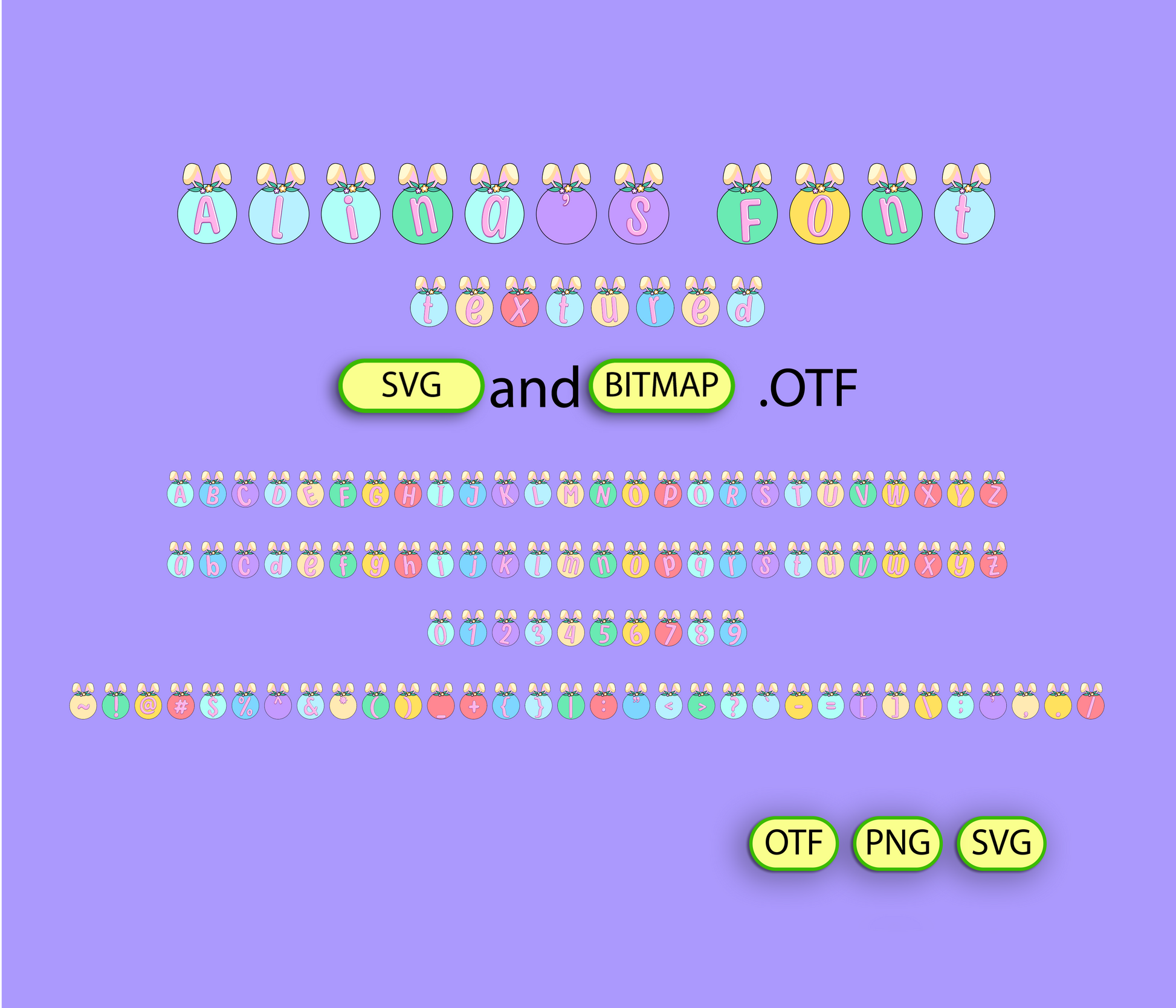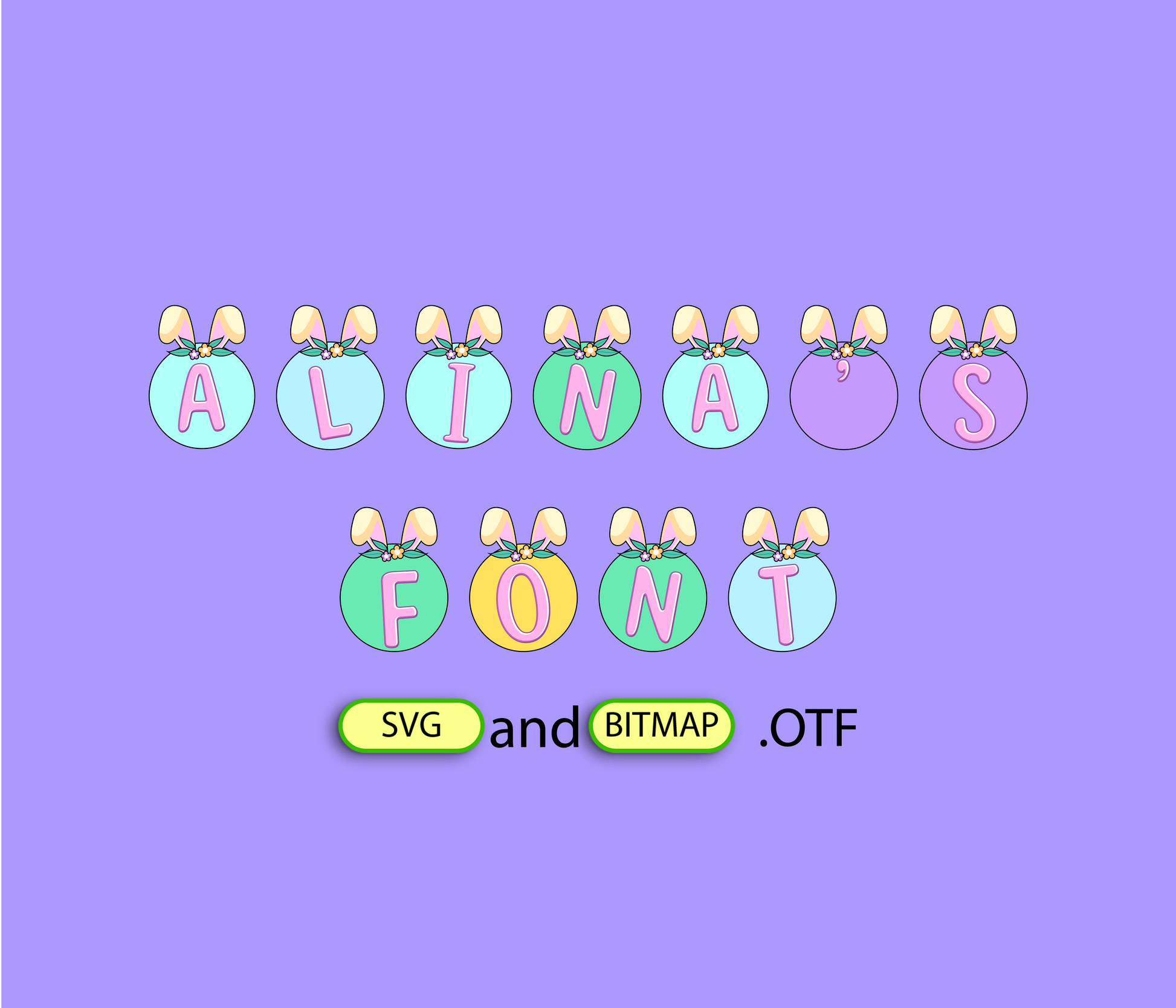
Easter Cheer Banner Font Textured
Easter Cheer Textured Typeface
Easter, a time of renewal and celebration, is beautifully encapsulated in our specially designed Easter font. This font, inspired by the season's themes of rebirth, hope, and communal joy, perfectly complements the festive spirit of Easter with its playful yet elegant design. Whether you're designing invitations for an Easter gathering, creating engaging educational content, or crafting heartfelt messages and designs to share on social media, the Easter font adds a touch of spring and warmth to your projects.
Celebrate the essence of Easter with our Easter font, and let your designs bloom with the freshness, joy, and hope that define this beloved season.